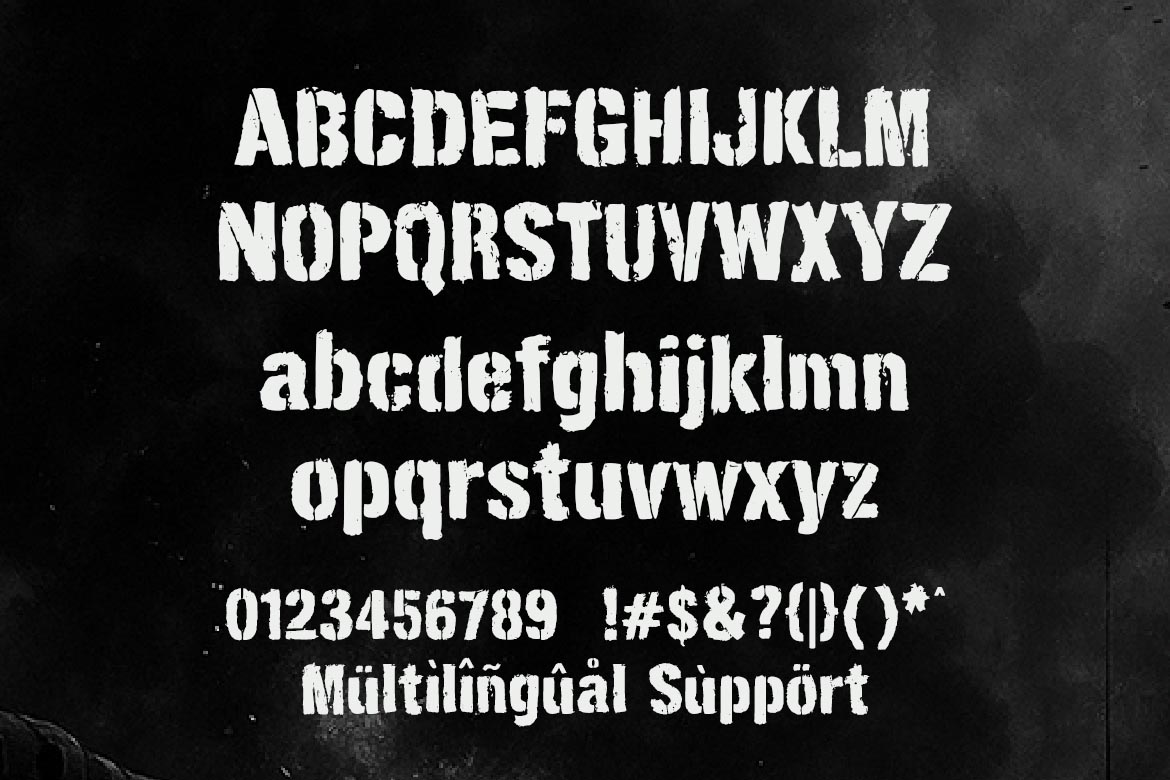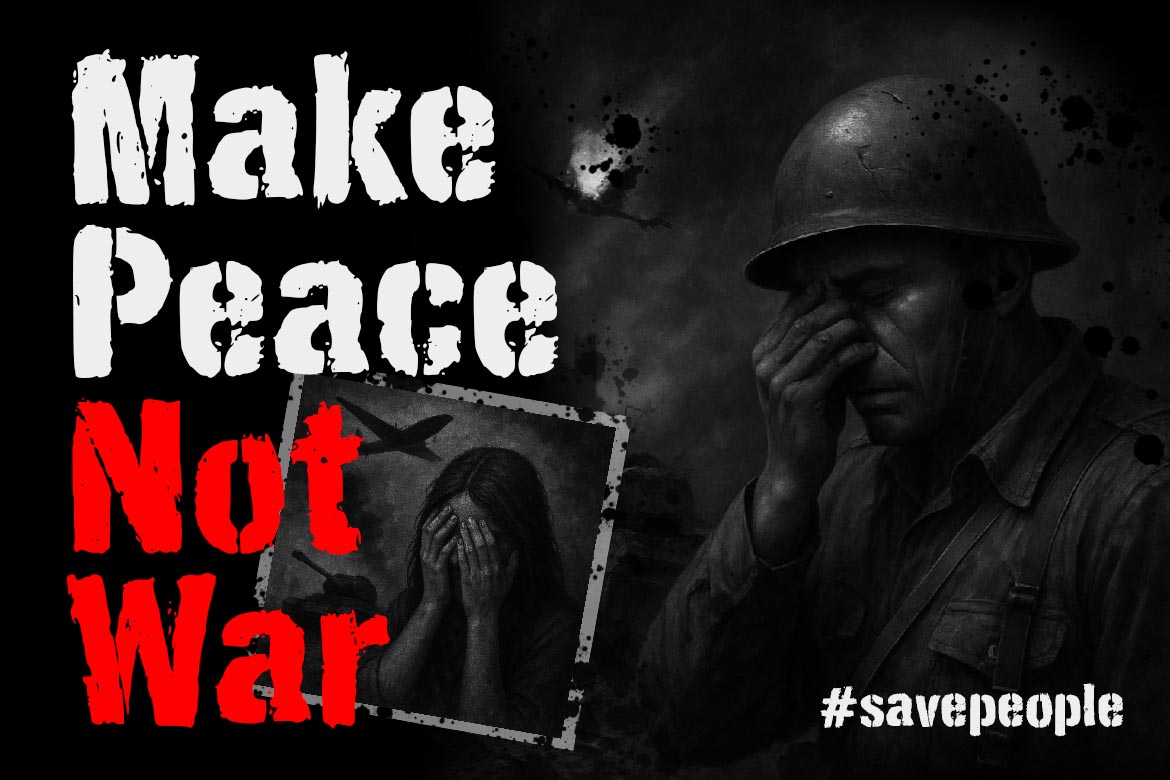
War Danger Alert
War Danger is a bold and gritty display font designed to bring a sense of urgency, chaos, and destruction to your visual projects. With natural grunge textures and jagged edges, this font captures the raw energy of war zones, battlefield posters, and survival game titles. Perfect for military branding, combat-themed graphics, movie covers, or anything that needs a bold warning message.
This typeface stands strong in uppercase headlines and has a powerful presence in any design. Available now on PrimeFont – your home for high-impact and professional fonts.
• All uppercase characters
• Numbers & essential punctuation
• Grunge-destroyed texture built-in